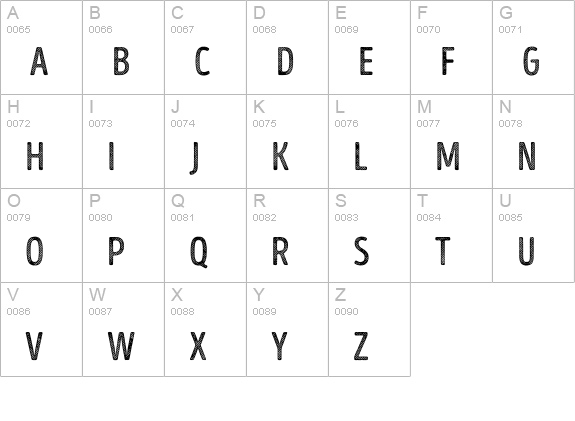
Intro Head B L Base font is a modern and sleek typeface designed for creating eye-catching headlines and titles. With its bold and distinctive characters, this font commands attention and adds a touch of sophistication to any design project. The clean lines and sharp edges of Intro Head B L Base font make it perfect for use in posters, advertisements, and branding materials. What makes Intro Head B L Base font even more appealing is that it is available for free download at FontsMarket.com. This means that you can easily access this stylish font without any cost, making it a valuable addition to your font collection. Whether you are a designer looking to elevate your projects or a business owner seeking a unique font for your branding, Intro Head B L Base font offers the perfect solution. Download it today and take your designs to the next level.